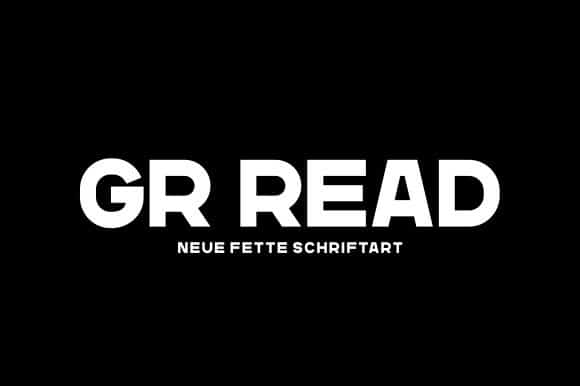
GR Read One Sans Serif Font
Introducing the new GR Read One Sans Serif Font!!! It’s a elegant and classy sans typeface – already matched up and ready to be used together for your next design! It is a font from the designer Garisman Studio. This typeface is a very cool font for headline designs with a bold and bold theme.
With a strong display and clean nodes make text in the design become more character and great. Inspired by headline trends in a poster or magazine today. So that with a firm and a very modern style makes your design better!
This font is formed from the headline display typeface of a very careful title. GR Read has about 350 flying machines. Suitable for all graphic design projects, prints, logos, posters, t-shirts, packaging, website, ticket and applies to several types of graphic design.
Especially for the use of a title! Very suitable! GR Read is compatible with any software without pain, especially in headlines with GR Read pairing.